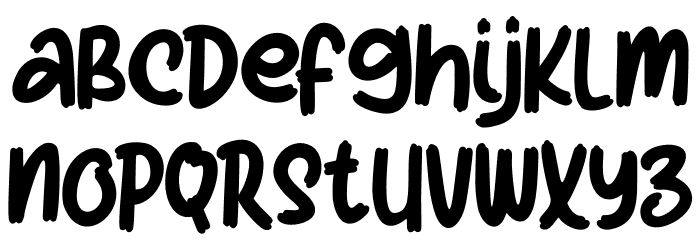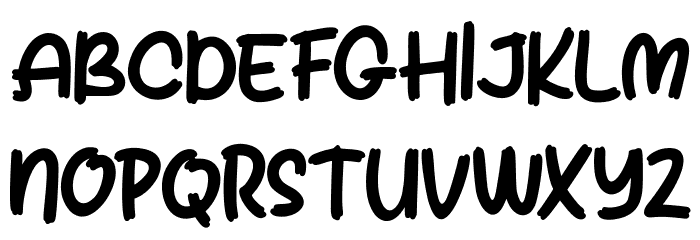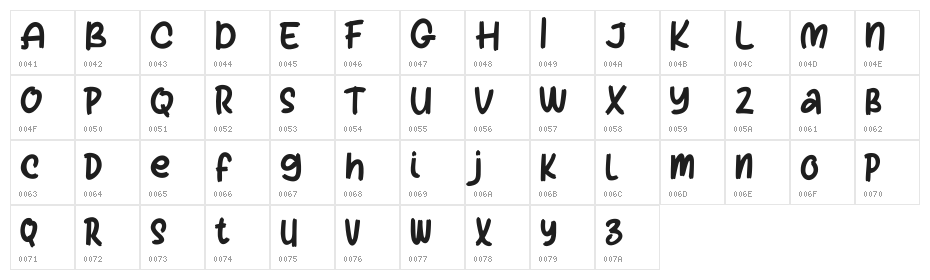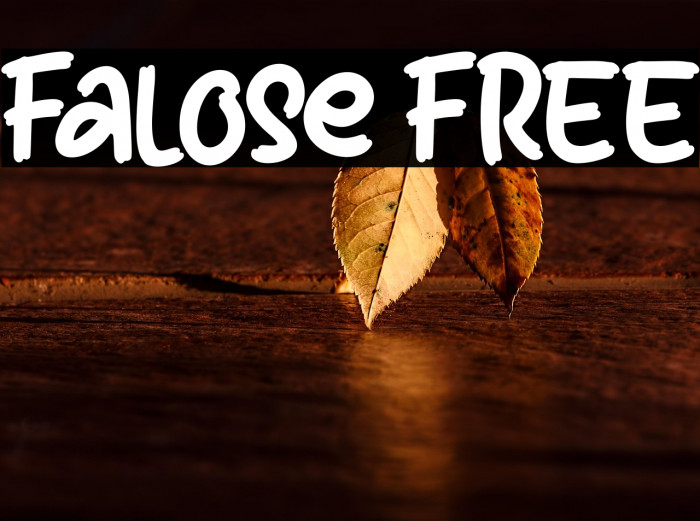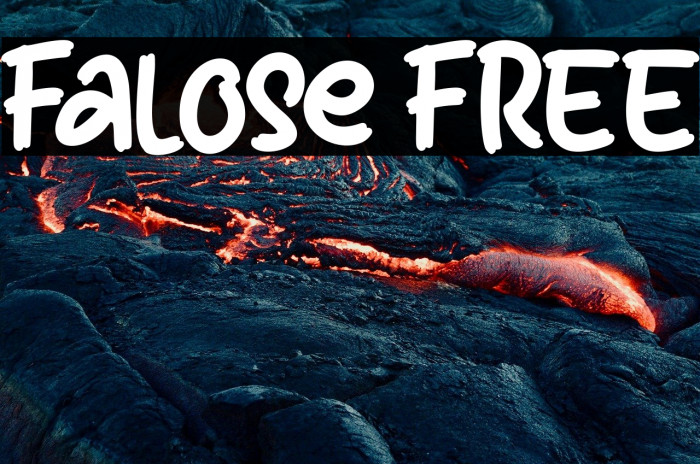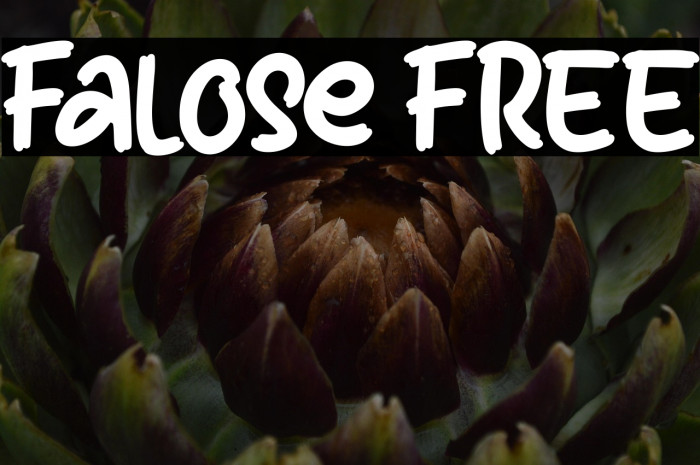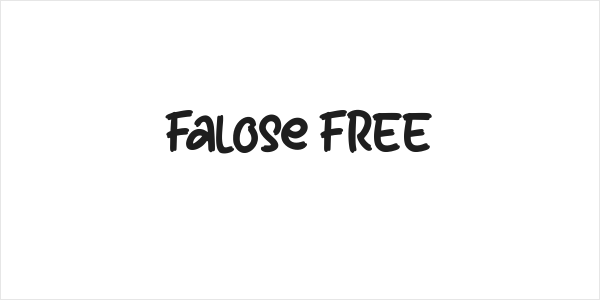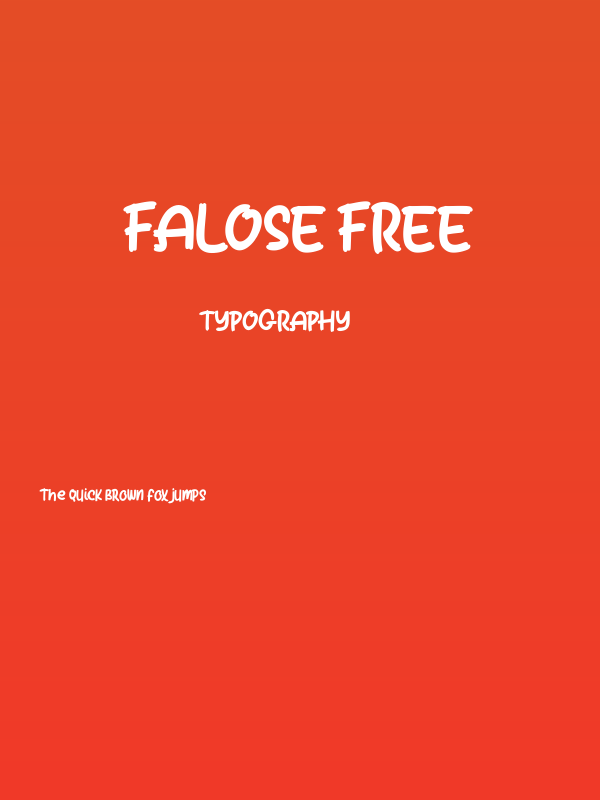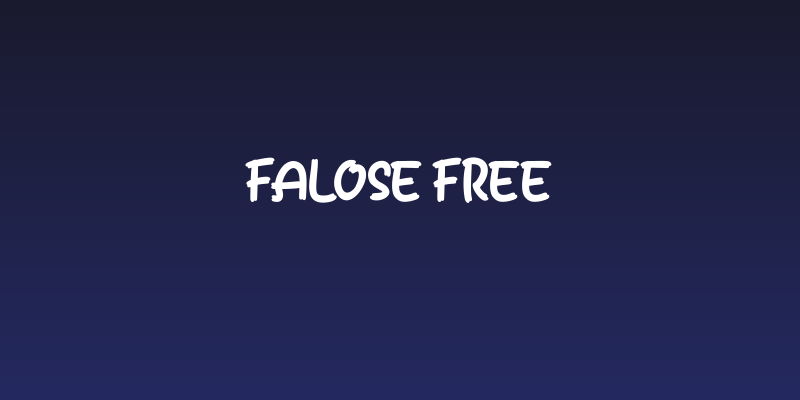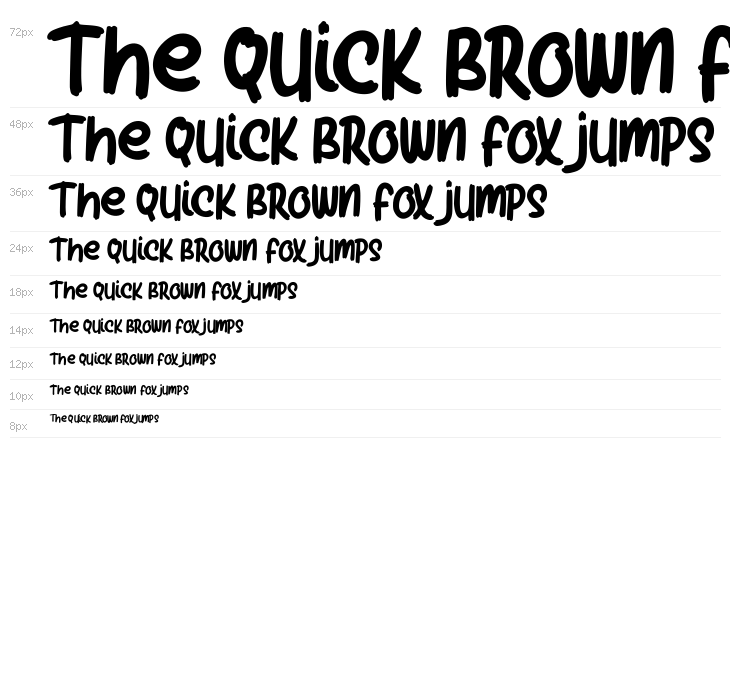
Falose FREE Font
This font features a bold, playful style with a handwritten appearance. The characters are rounded and have a consistent thickness, giving them a friendly and approachable look. The uppercase and lowercase letters maintain a cohesive design, with smooth curves and a slightly informal feel. The font's whimsical nature makes it suitable for creative projects that require a touch of personality. It is well-suited for designs that aim to convey warmth and friendliness, such as children's books, playful branding, or casual invitations.
A bold, playful handwritten font with rounded characters.
- Proposed Projects: Ideal for children's books, playful branding, casual invitations, and creative projects.
- Overall Style: Playful
- Use Case: Headlines, Logos, Invitations